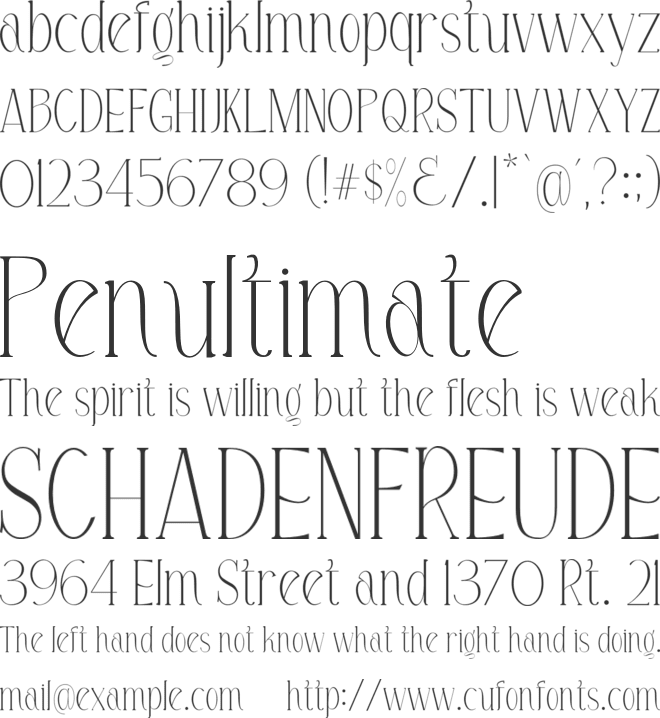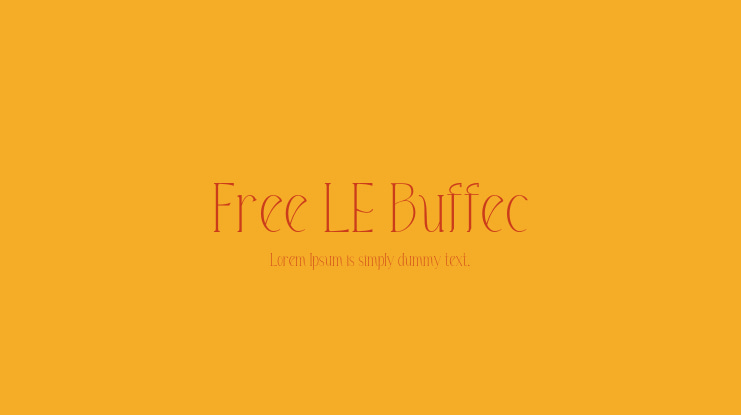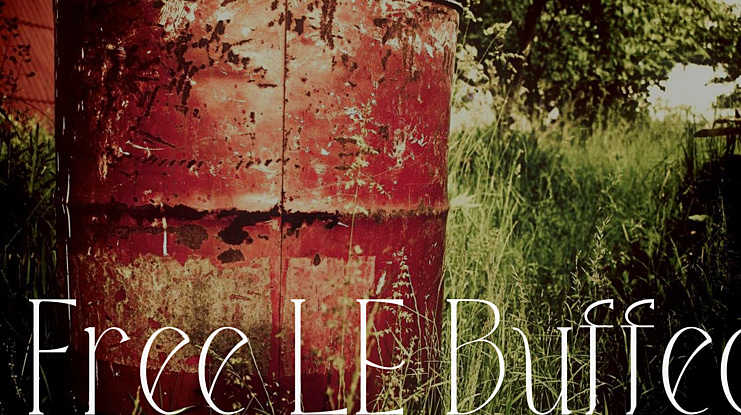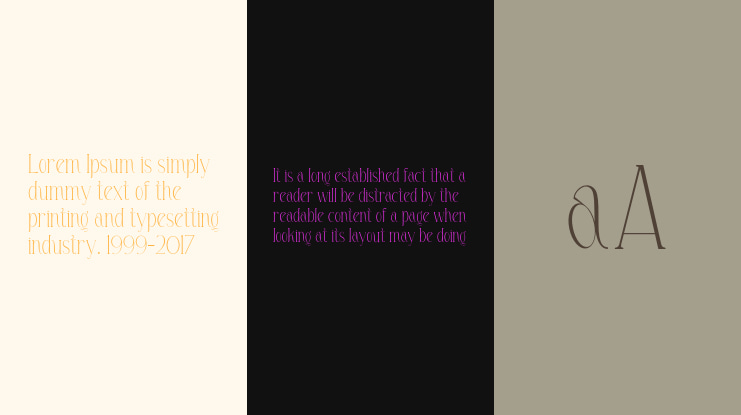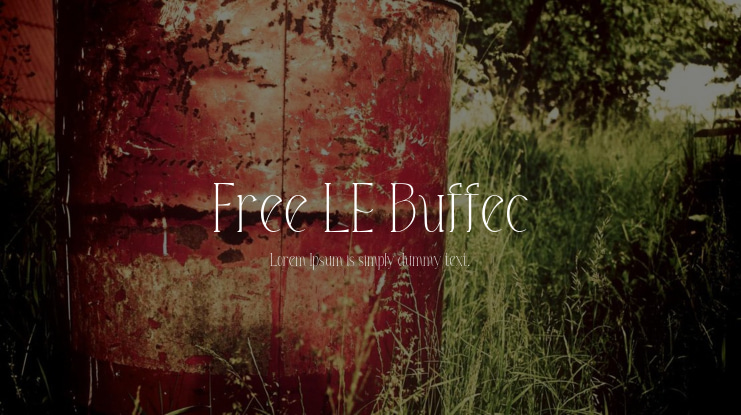
Product Description: LE Buffec is a modern display serif font. It comes in a variable typeface for weight, allowing you to adjust the weight options using the variable sliders in your design software. You can also play around with individual letters to give your type a unique look. This font family includes alternate characters to provide even more styling options. It looks stunning in a variety of design works and supports full multilingual characters. LE Buffec is well-suited for advertising, branding, logos, packaging, titles, headlines, and editorial design. Enjoy working with LE Buffec font. Cheers!
Deskripsi Produk: LE Buffec adalah font serif modern yang memiliki tampilan menarik. Font ini mempunyai jenis variabel berat, sehingga Anda dapat mengatur opsi beratnya melalui slider yang ada di perangkat lunak desain. Anda juga dapat bereksperimen dengan huruf-huruf individual untuk memberikan tampilan yang unik pada teks Anda. Keluarga font ini juga menyertakan karakter alternatif untuk memberikan lebih banyak opsi gaya. Font ini terlihat menakjubkan dalam berbagai jenis desain dan mendukung karakter multibahasa secara penuh. LE Buffec sangat cocok untuk iklan, merek, logo, kemasan, judul, headline, dan desain editorial. Selamat menggunakan font LE Buffec. Cheers!